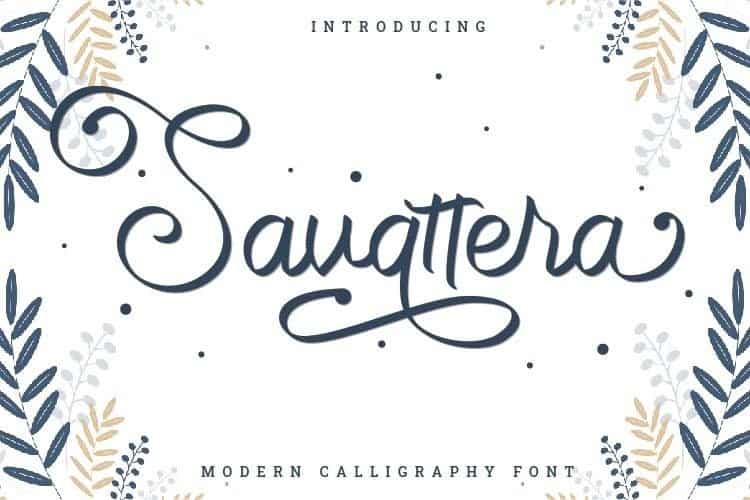
Savattera Handwritten Font
Savattera Handwritten Font is completely hand-drawn and contain ligatures to perfectly re-create natural handwriting. This typeface is a new script font created by prioritype with a beautiful, uniquely elegant and very charming look, you can click it and can be used in your projects such as wedding invitations, quotes, creative posts, clothing product packaging, promotions, video preview images, logos and much more to explore. because it has many cool variations. As a picture you can see the preview above.